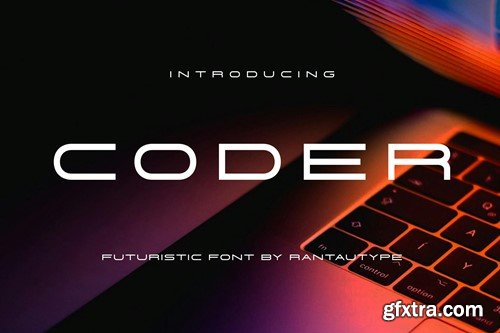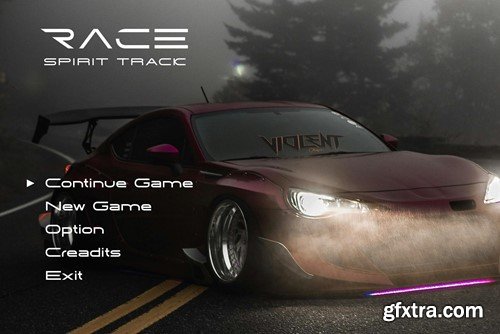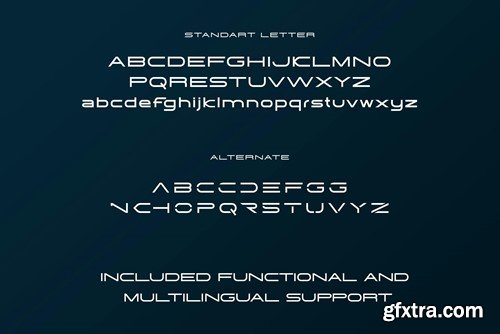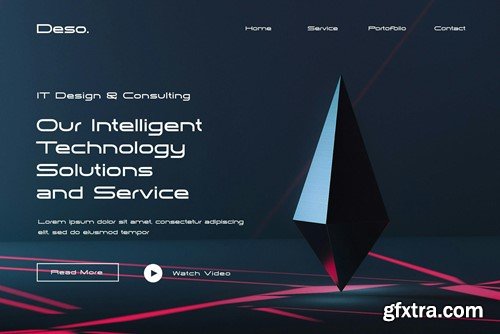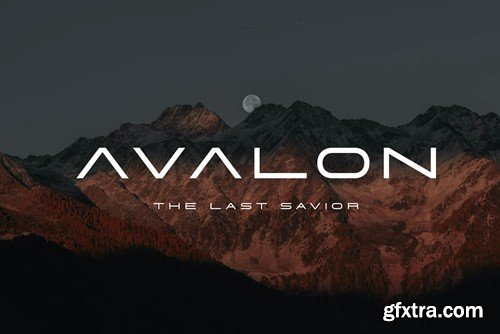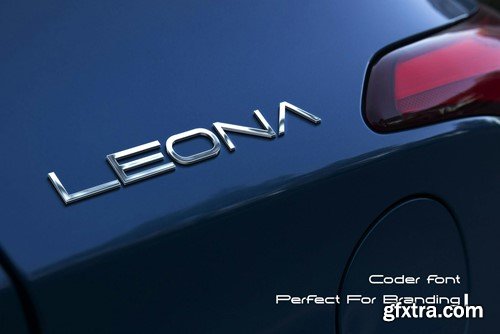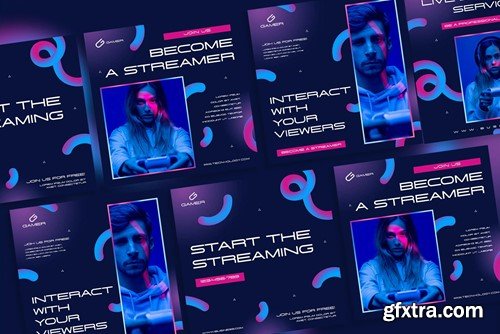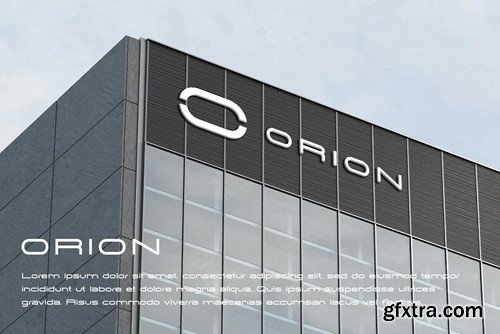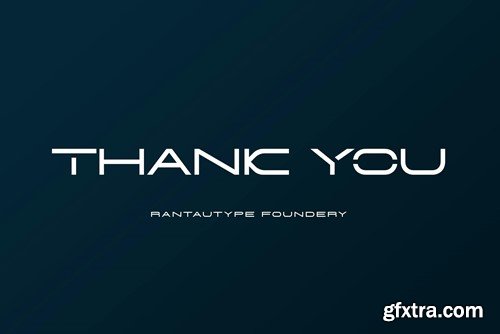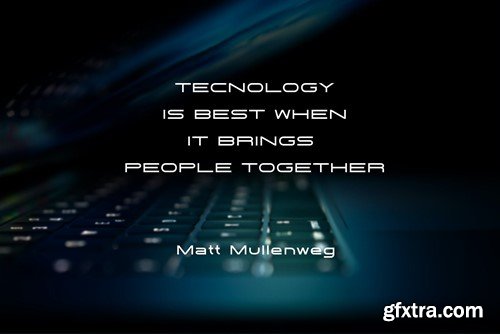
coder 现代字体 HGT29K7
Hi Ladies and Gentleman ! Proudly present Coder futuristic font by rantautype Coder is simple and minimalist font it's inspired by futuristic font. Simplicity curve make this font looks modern, minimal and sophisticated. Coder come with alternate and support multilingual accent support. Coder is a beautiful choice for any creative endeavor, creating modern, chic, lifestyle design such as logos, title, cover, film or movie, branding, display and magazine and more. Now you have can choice coder to elevate you desaign or branding. Features: File include: Langguange support: Afrikaans, Albanian, Asu, Basque, Bemba, Bena, Breton, Catalan, Chiga, Cornish, Danish, Dutch, English, Estonian, Faroese, Filipino, Finnish, French, Friulian, Galician, German, Gusii, Icelandic, Indonesian, Irish, Italian, Kabuverdianu, Kalenjin, Kinyarwanda, Luo, Luxembourgish, Luyia, Machame, Makhuwa-, Meetto, Makonde, Malagasy, Manx, Morisyen, Northv Ndebele, Norwegian, Bokmål, Norwegian, , Nynorsk, Nyankole, Oromo, Portuguese, Quechua, Romansh, Rombo, Rundi, Rwa, Samburu, Sango, Sangu, Scottish, Gaelic, Sena, Shambala, Shona, Soga, Somali, Spanish, Swahili, Swedish, Swiss, German, Taita, Teso, Uzbek (Latin), Volapük, Vunjo, Zulu Thank you for visit our store and Hope you enjoy our font!!